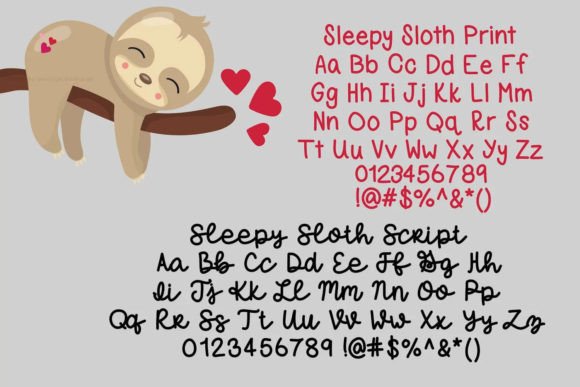
Introducing Sleepy Sloth, a handwritten font duo. The Sleepy Sloth font duo features a print and script font for the perfect pairing! Sleepy Sloth will look great on any project! Use it on things like cards, bags, water bottles, notebooks, stickers, and more!
Sleepy Sloth Duo Font